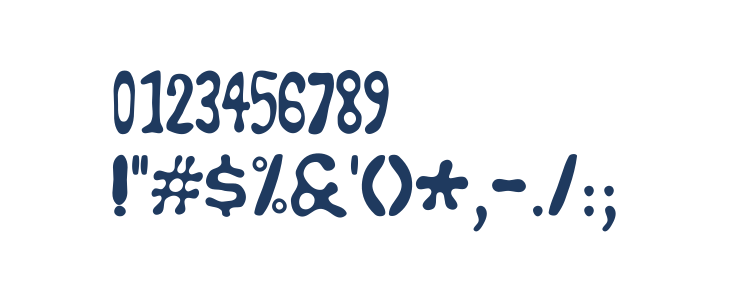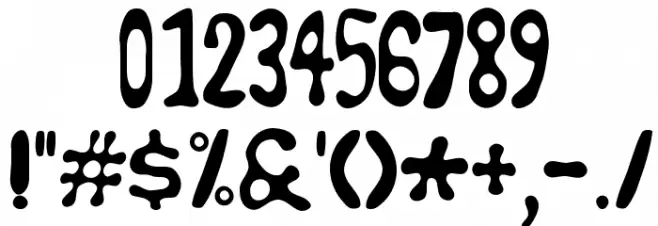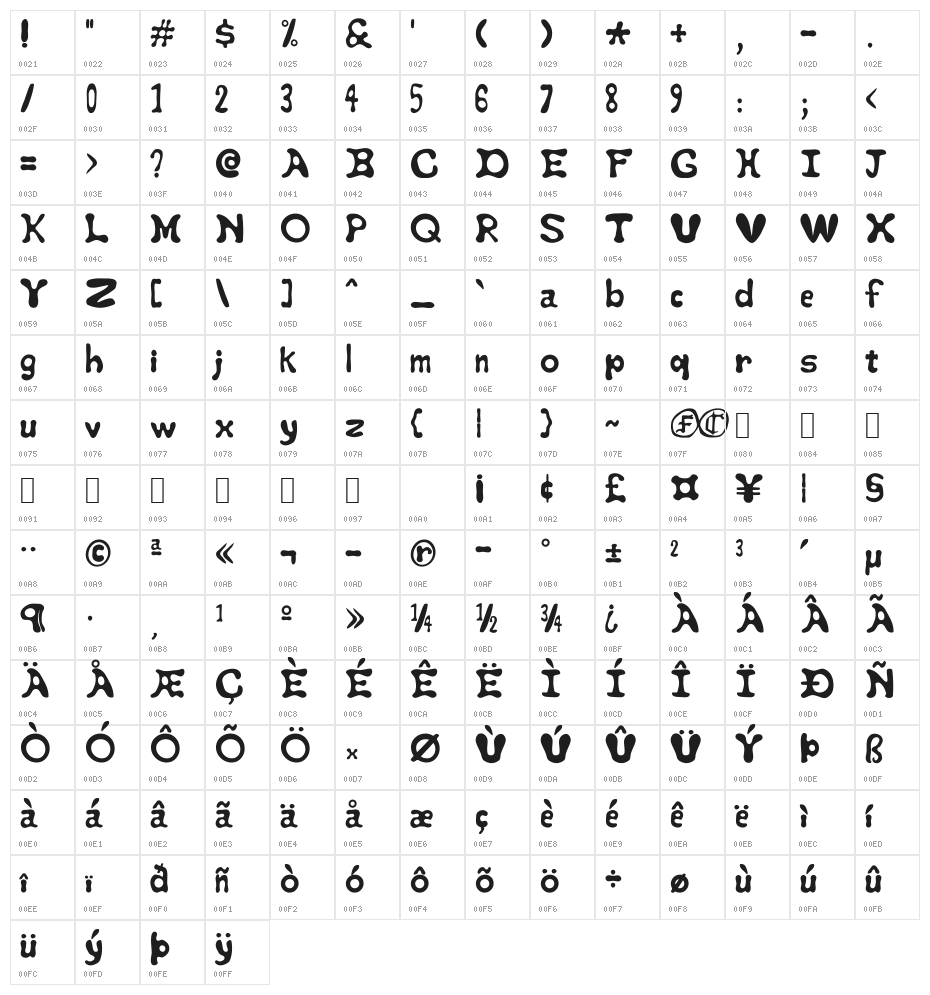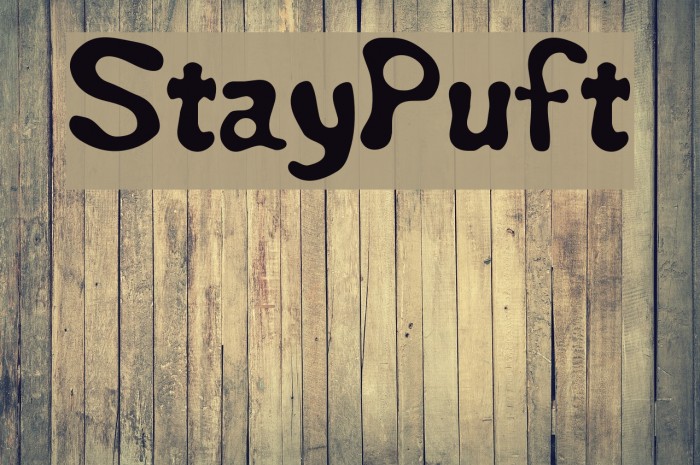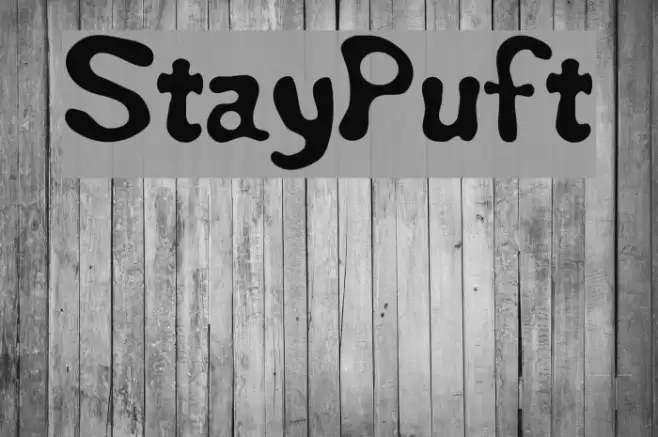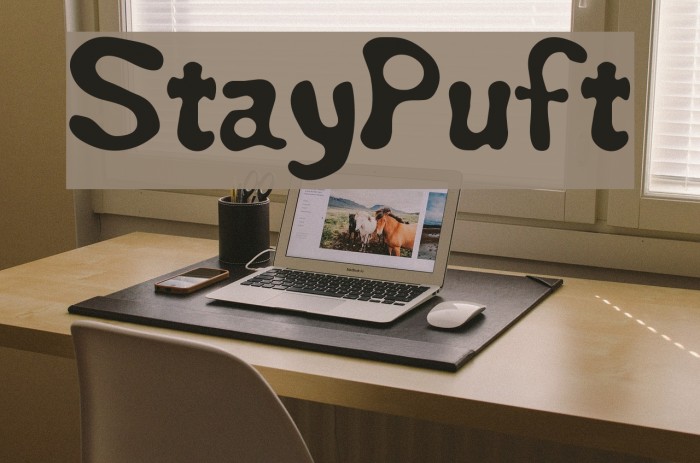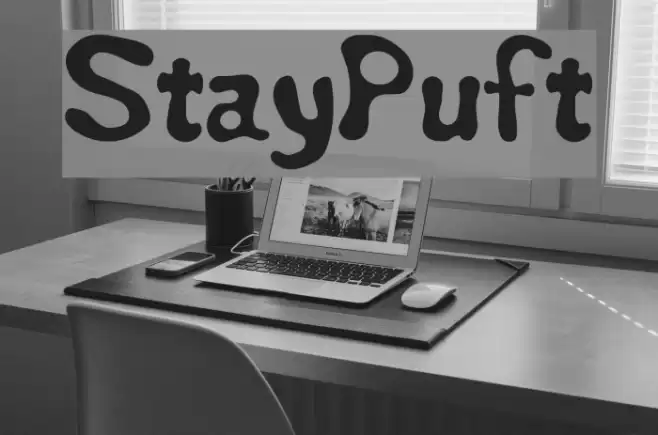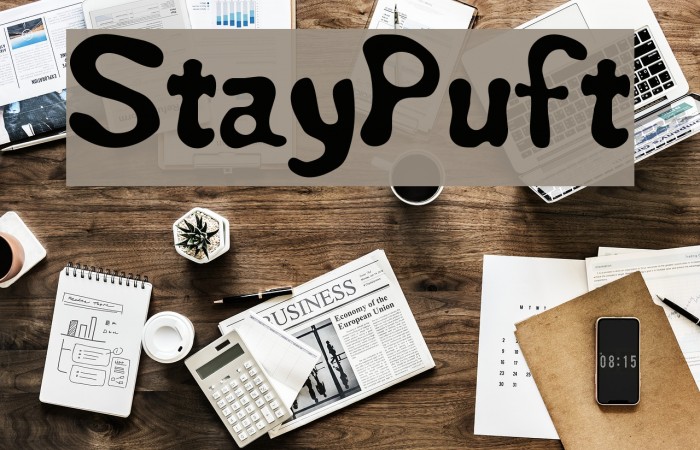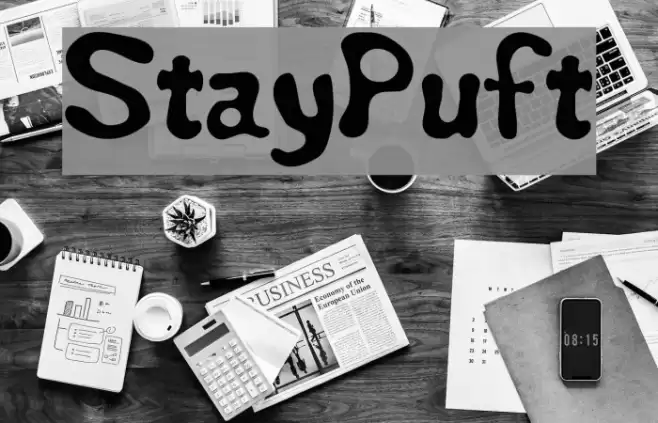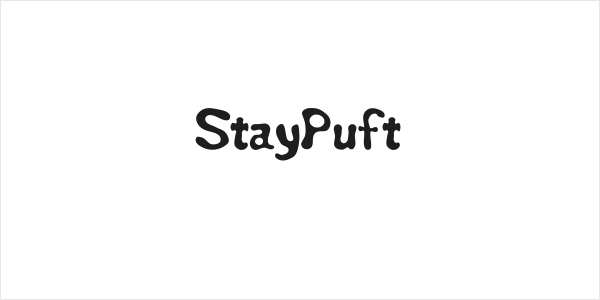
StayPuft Font
StayPuft Description
This playful and bold font features rounded, bubbly characters that give off a whimsical and fun vibe. The letters are thick and have a soft, inflated appearance, reminiscent of marshmallows or balloons. The overall design is consistent across uppercase, lowercase, numbers, and special characters, maintaining a cohesive look. The font's unique style makes it stand out, with each character having a slightly irregular shape, adding to its charm and appeal. It's perfect for projects that require a touch of humor or a lighthearted feel.